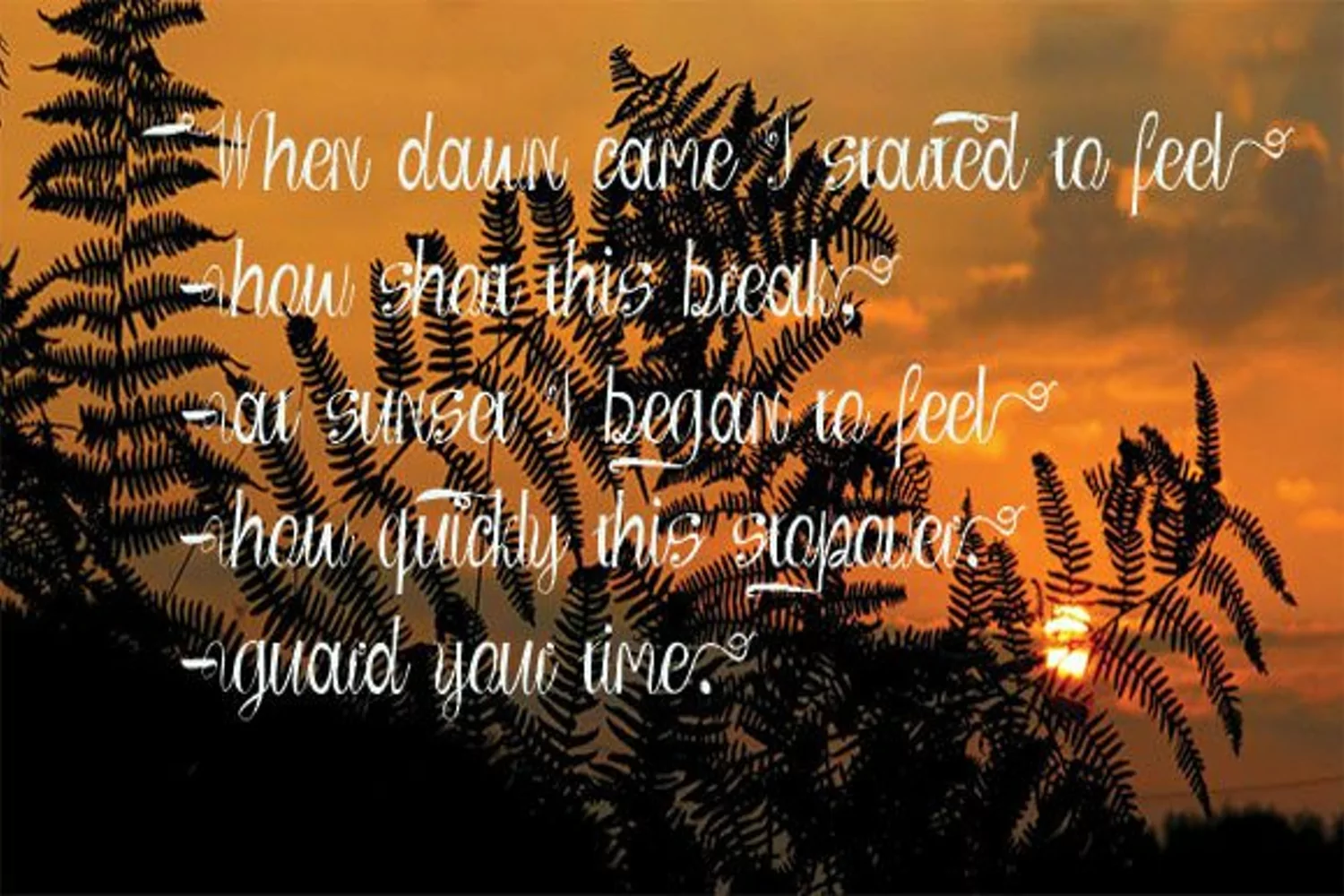
Calligraphy textilia typography
is a hand calligraphy, modern and clasik, calligraphy bumpy, which was created to meet the needs of the next design project. Textilia, can be used for the purpose. such as title, signature, logo, correspondence, wedding invitations, letterhead, signage, labels, newsletters, posters, badges, etc . Textilia features 361+ glyphs and 142 alternative characters. including initial and terminal letters, alternates, ligatures, and multiple language support.
Font features are: Swashes, Standard ligatures,Stylistic Sets,
Basic Features Latin A-Z and a-z Number Symbol